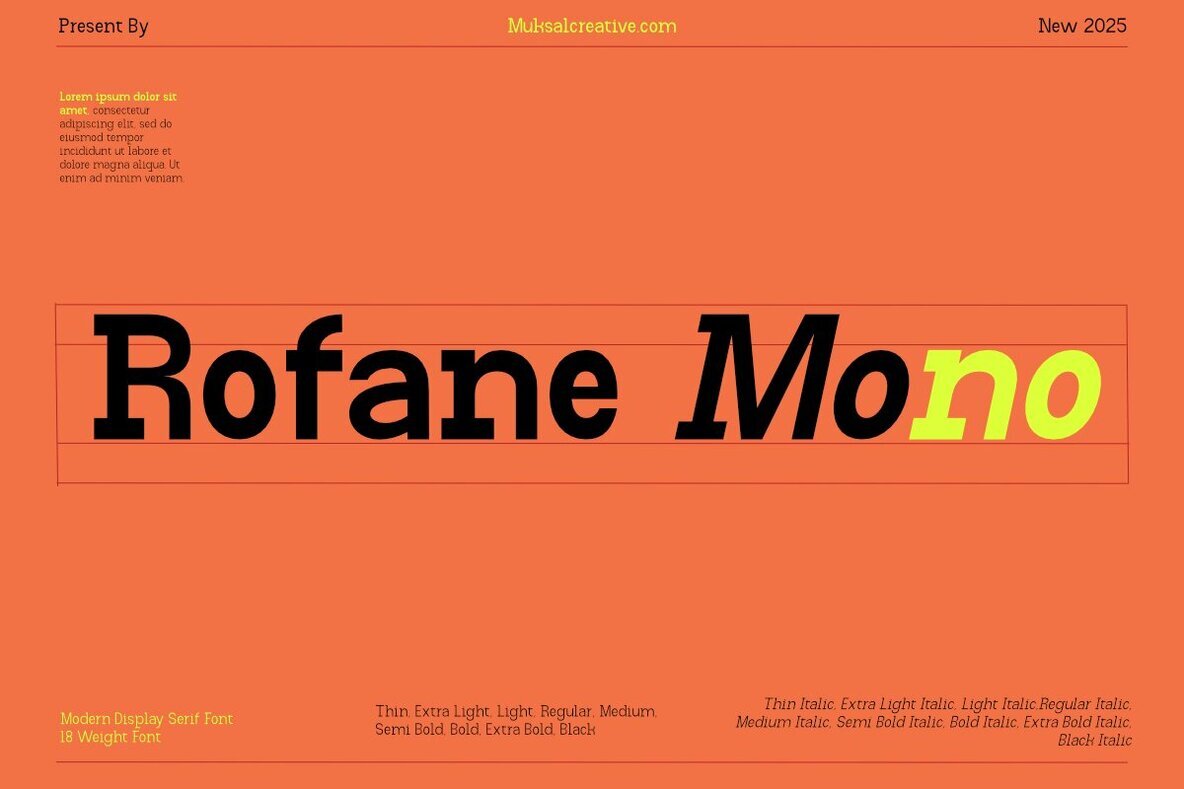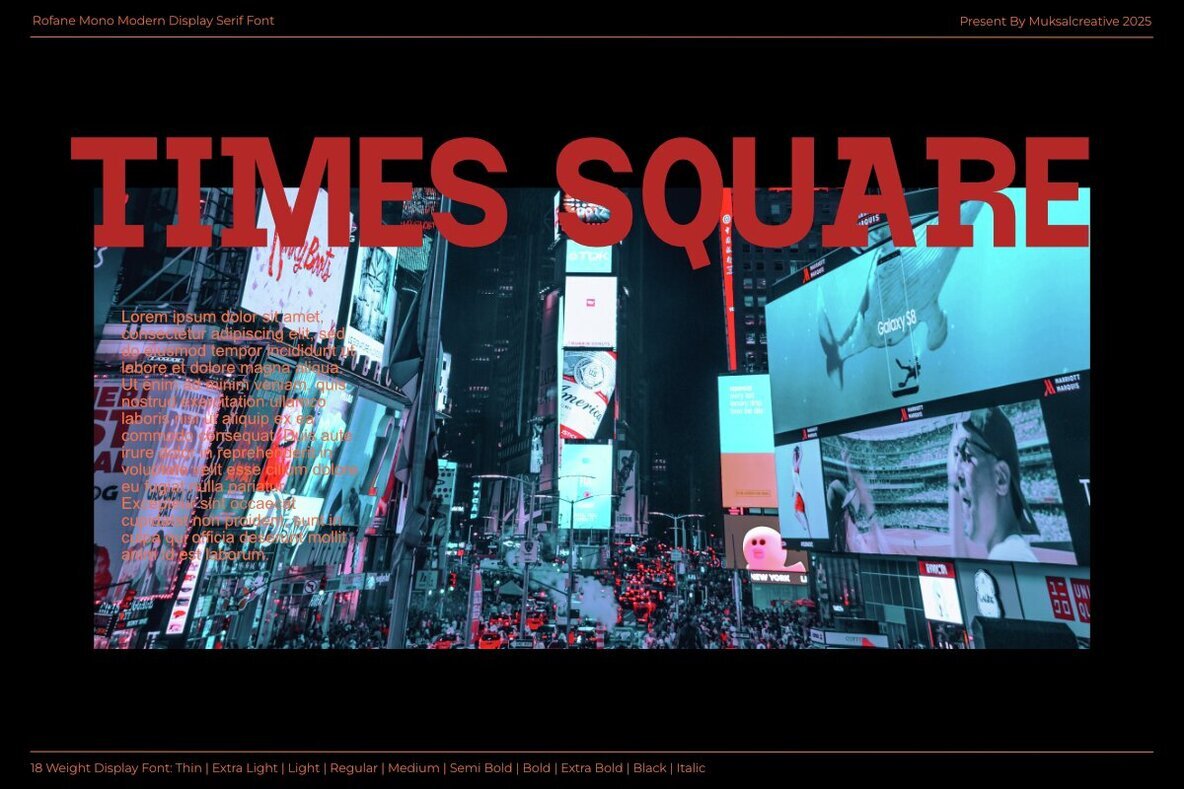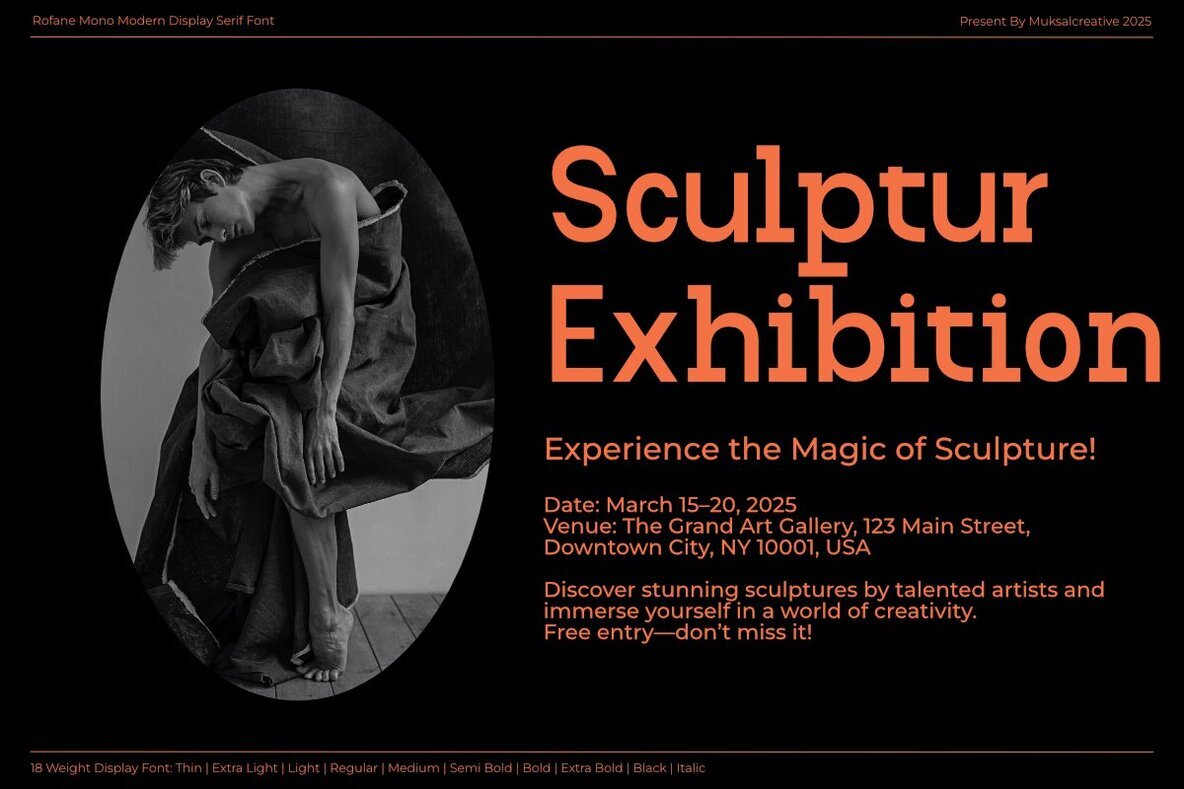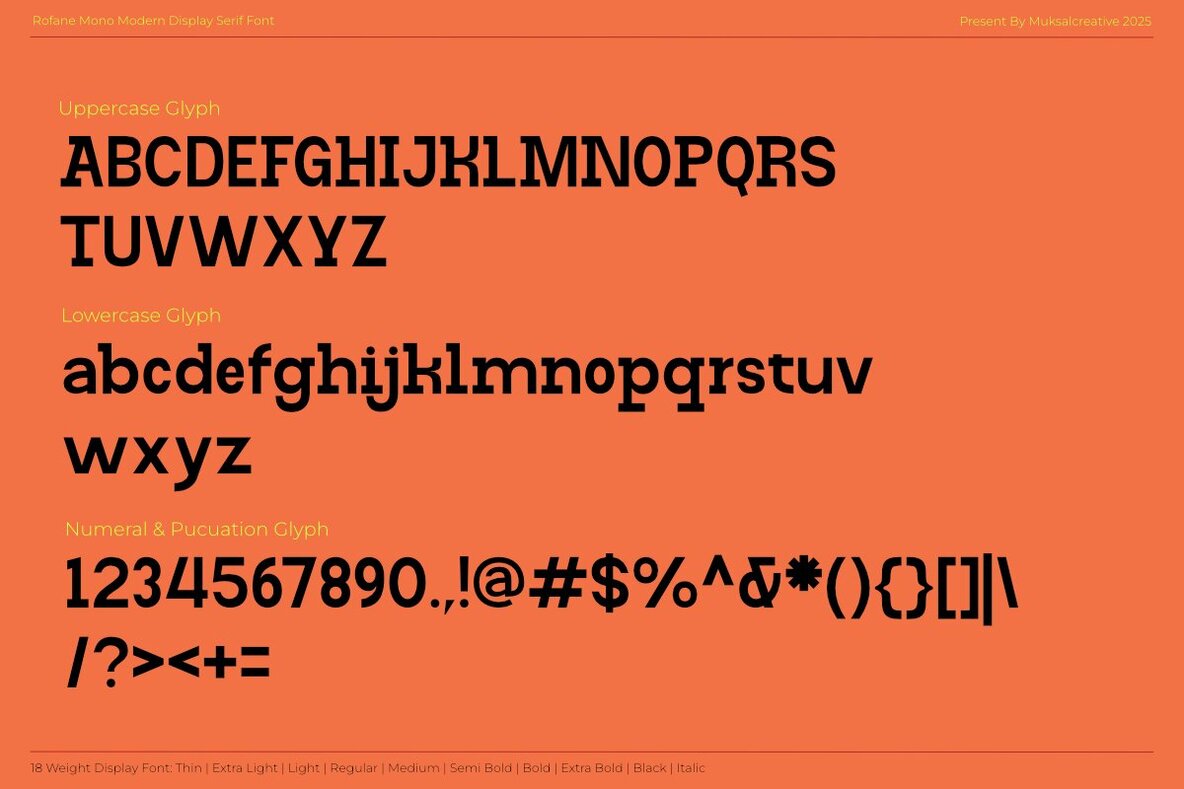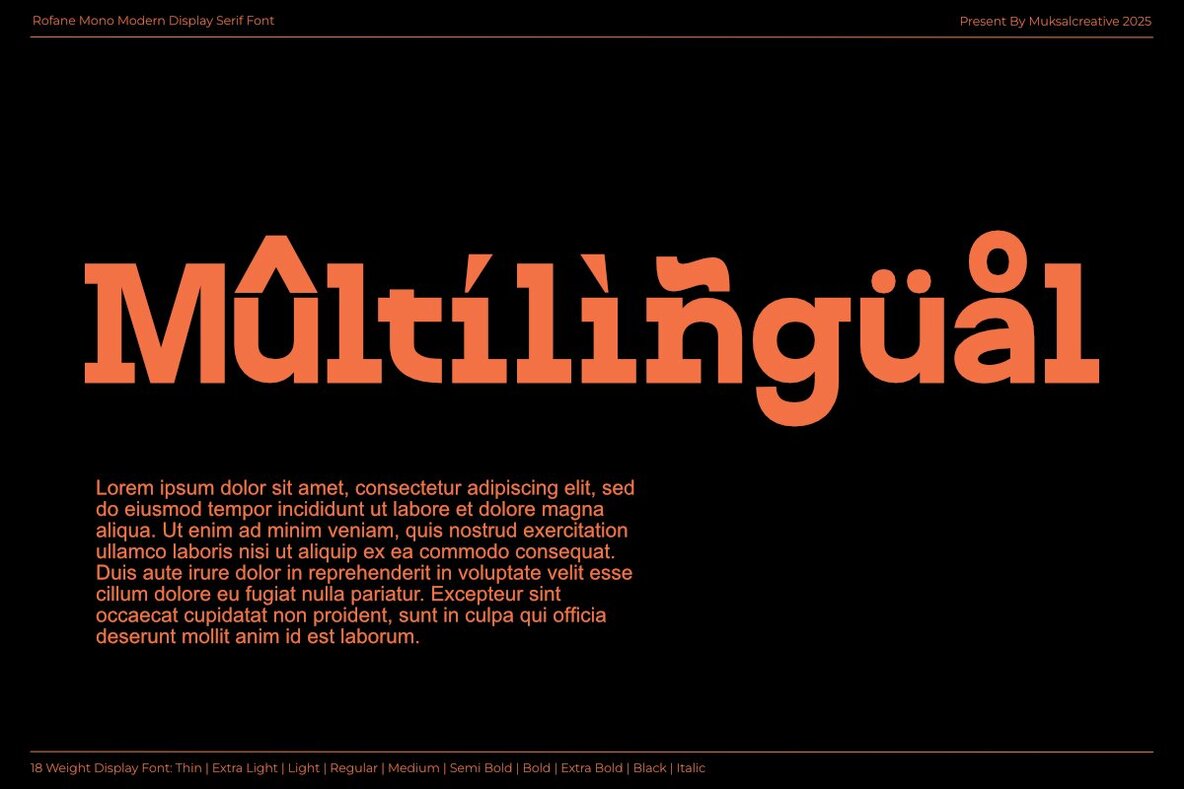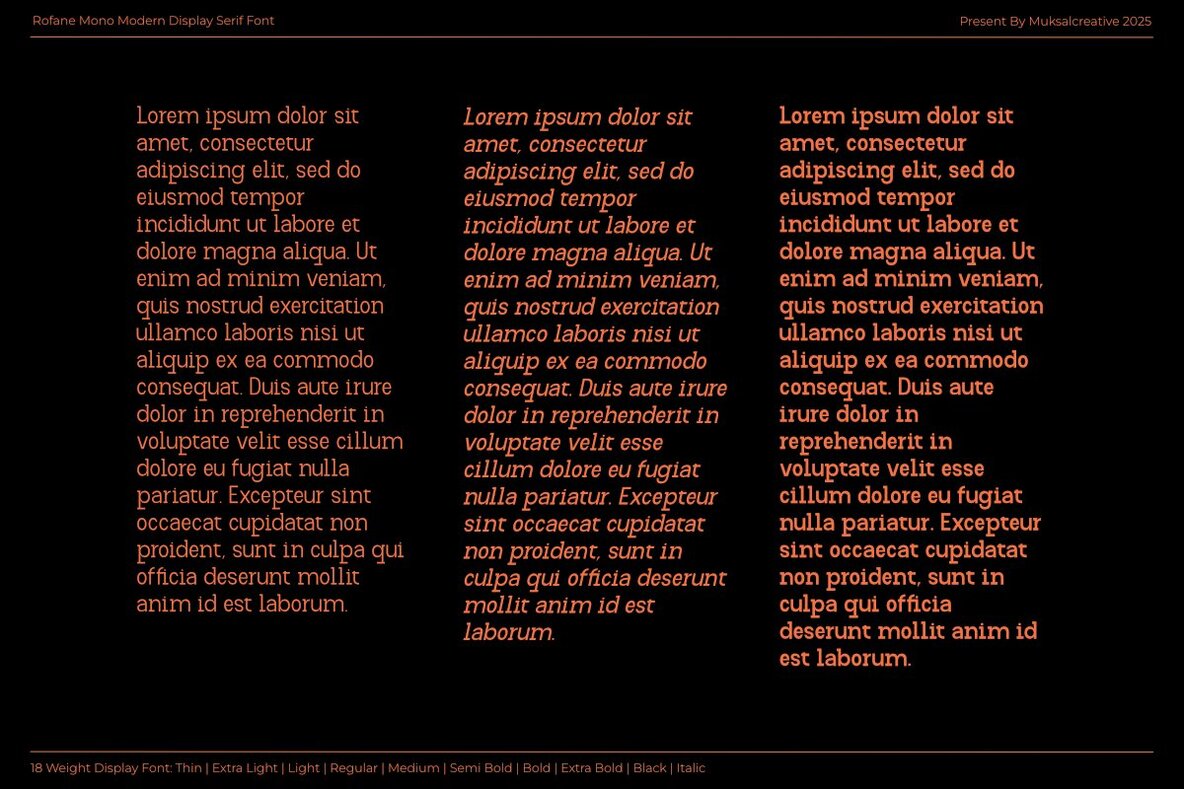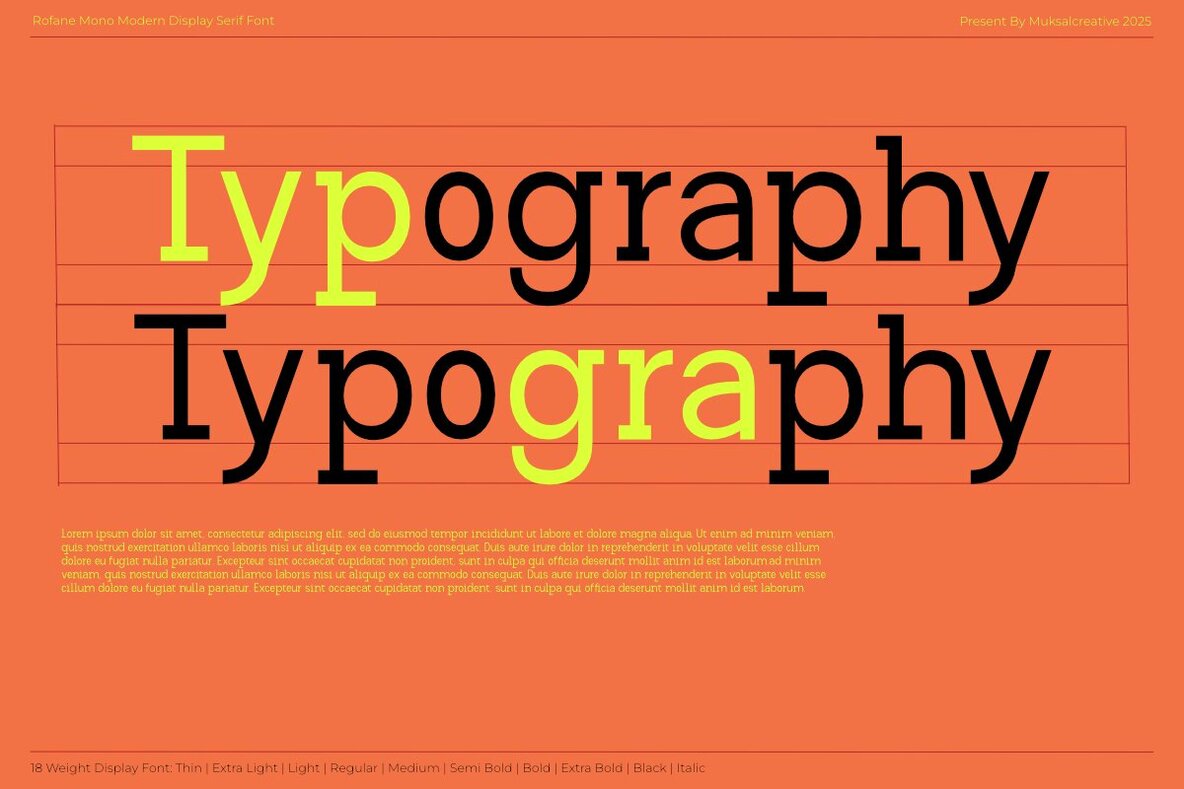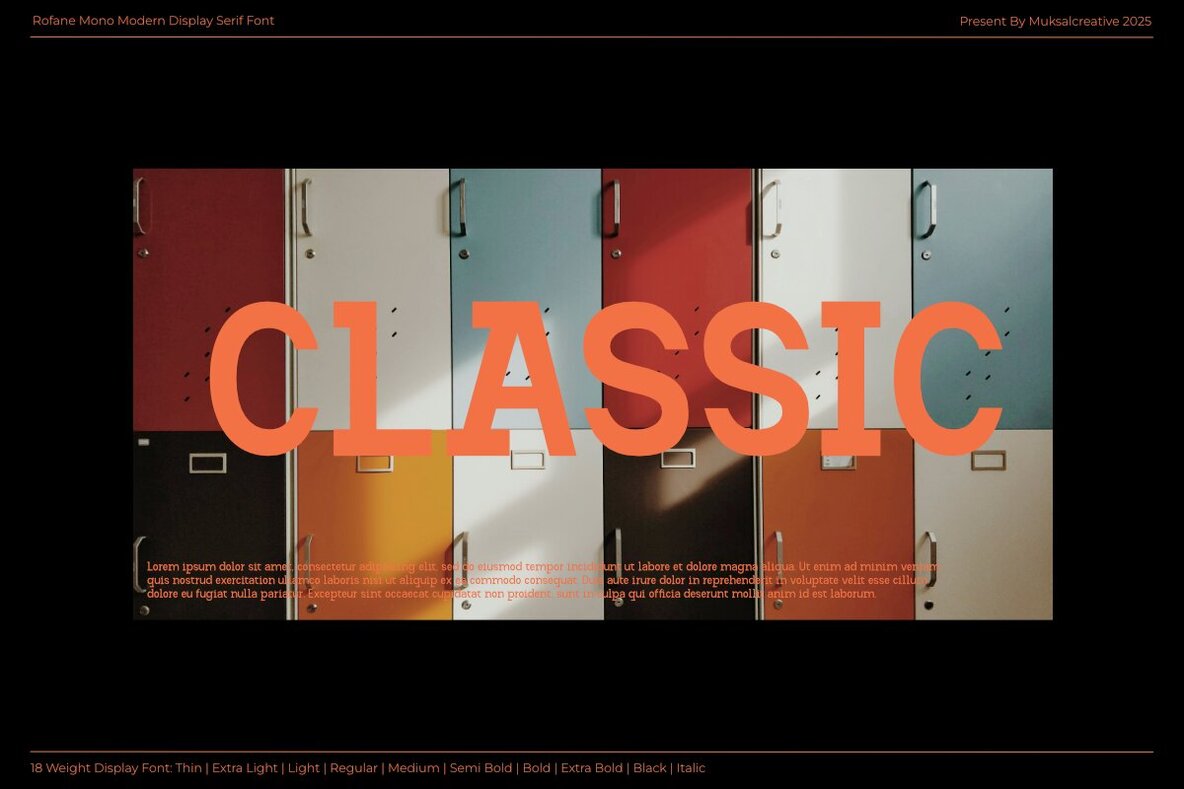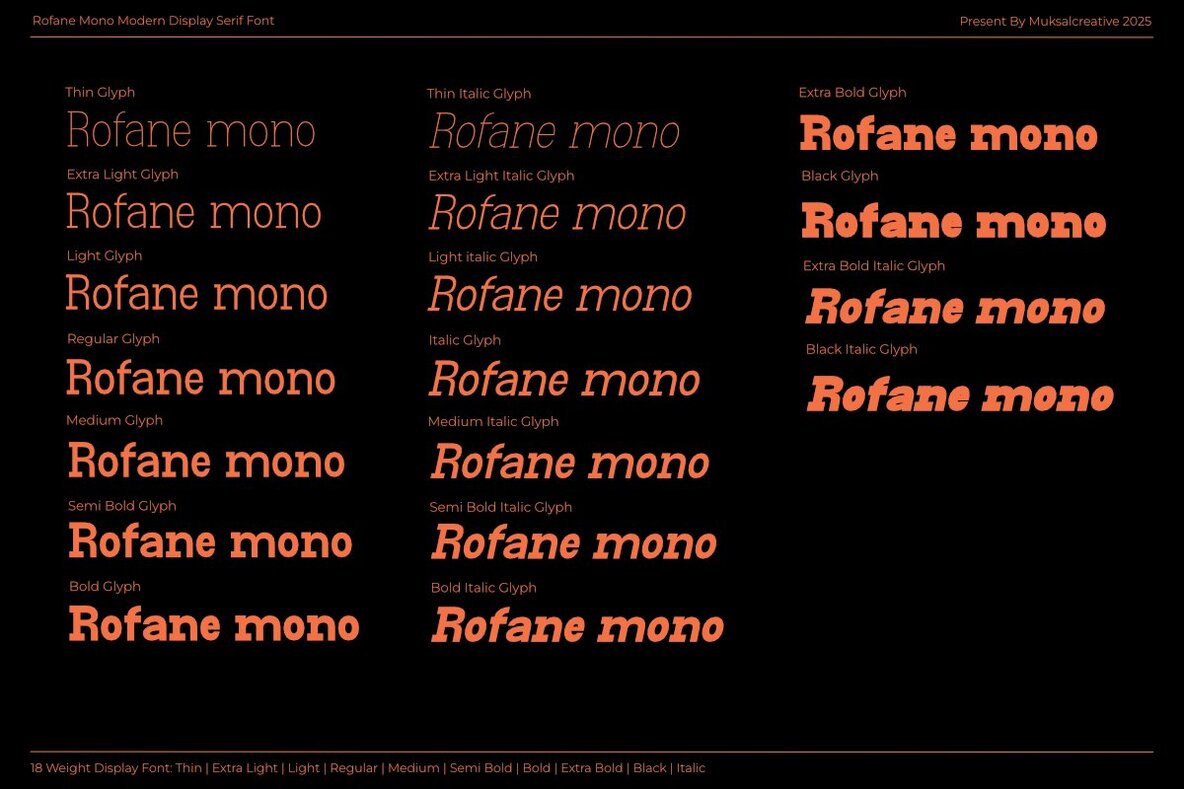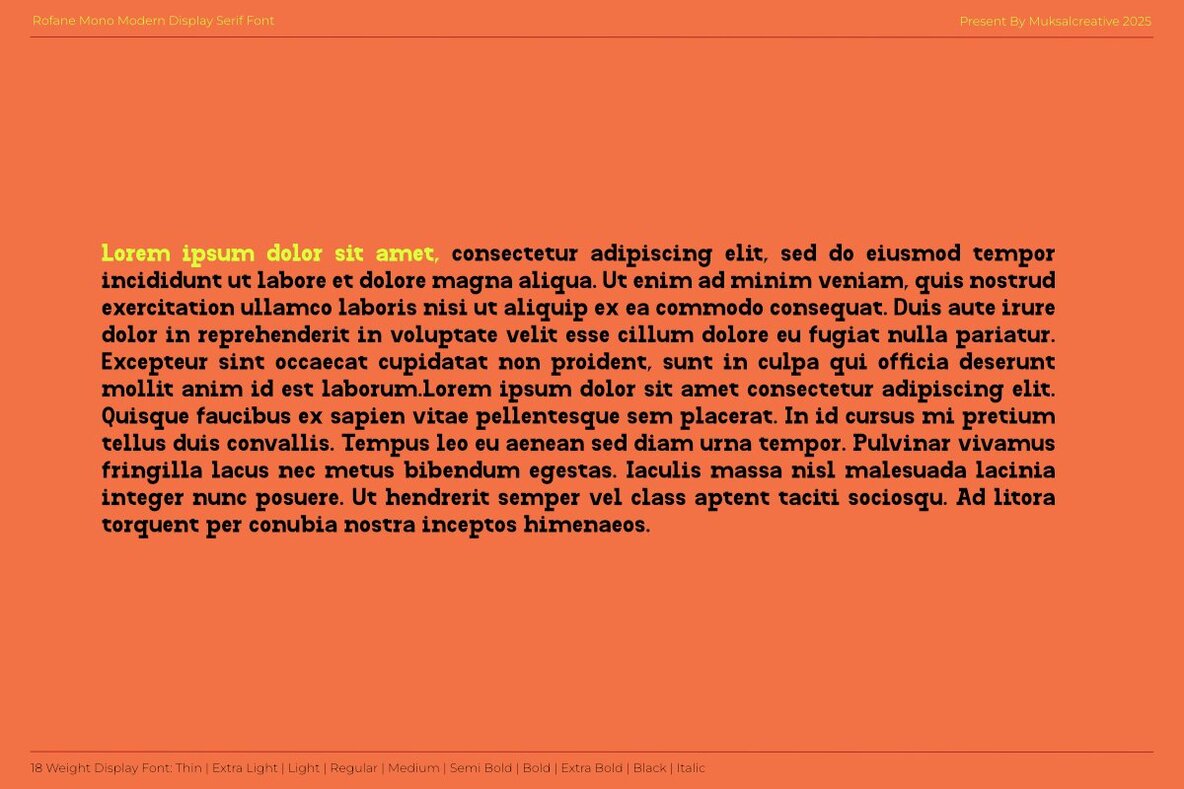
Rofane Mono Font
The Rofane Mono font family bridges the world of sans-serif clarity with the nuanced character of serif fonts. Designed to balance functionality and personality, it offers modern designers a distinct blend of structure and expression. This makes Rofane Mono an ideal choice for those who seek a unique typographic voice. With 18 distinct weights from Thin to Black, each accompanied by a matching Italic, Rofane Mono caters to a myriad of design needs. From editorial layouts to coding interfaces, branding projects, and typographic experiments, this font family infuses rhythm, consistency, and a fresh aesthetic into any design context. Whether you are developing a modern app or putting together a bold magazine layout, Rofane Mono enhances your typography toolkit. Features:Rofane Mono: A Unique Hybrid Monospaced Font Family